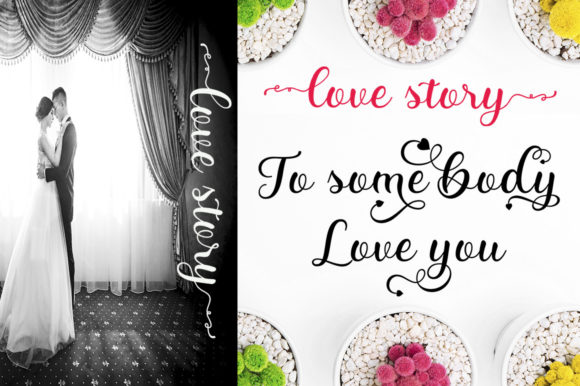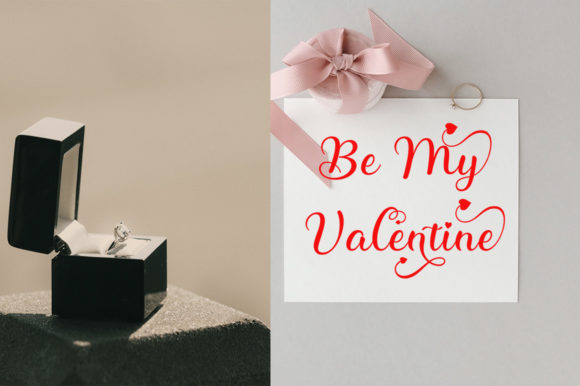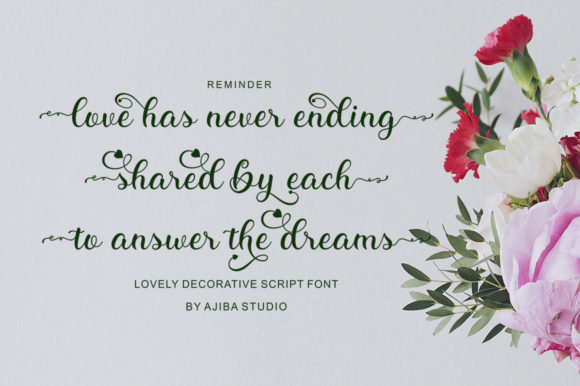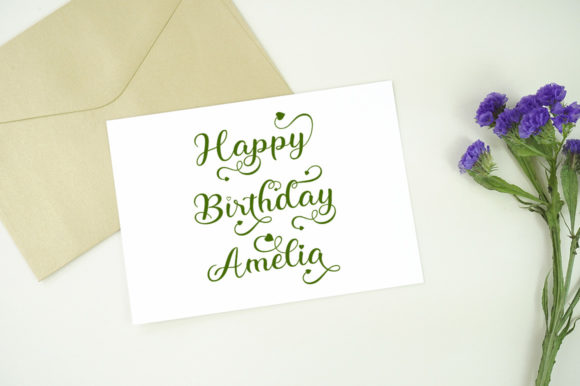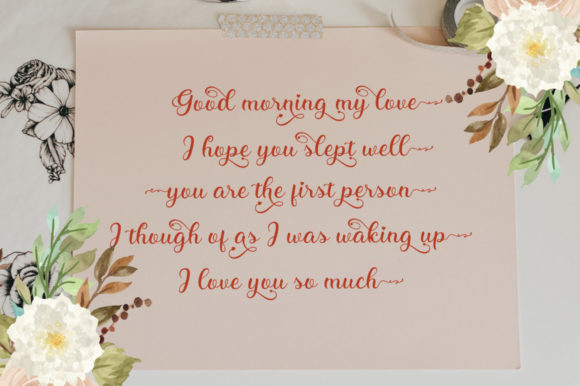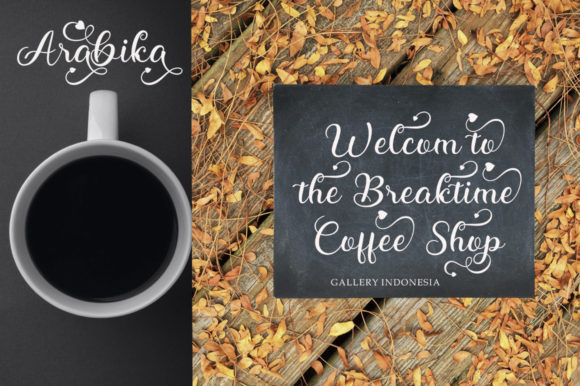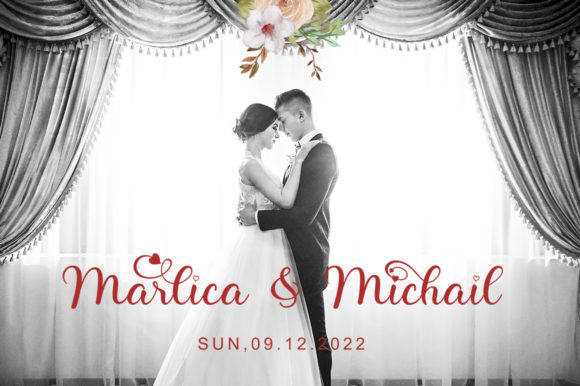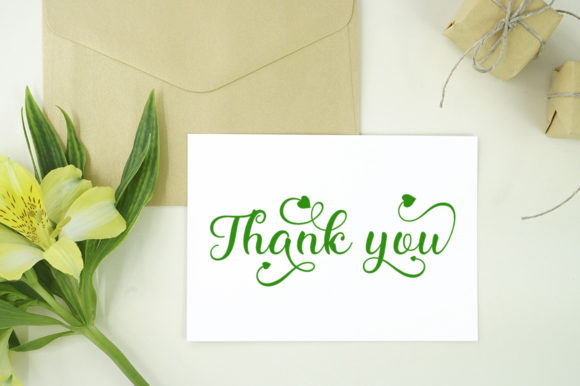
About Camellina Script Font
Camellina Script is a clean and beautiful script font. Featuring lovely swashes with irregular baselines, this font will be an incredibly asset to your fonts’ library. It is also PUA encoded which means you can access all of the glyphs and swashes with ease!